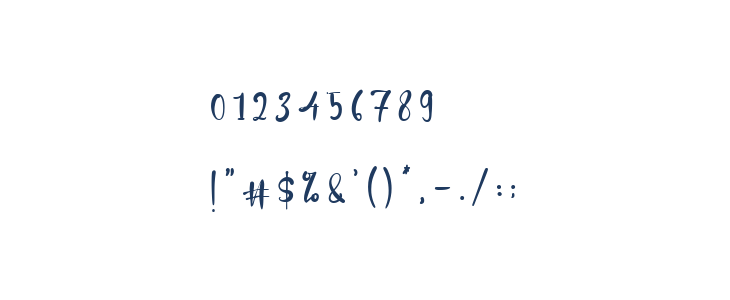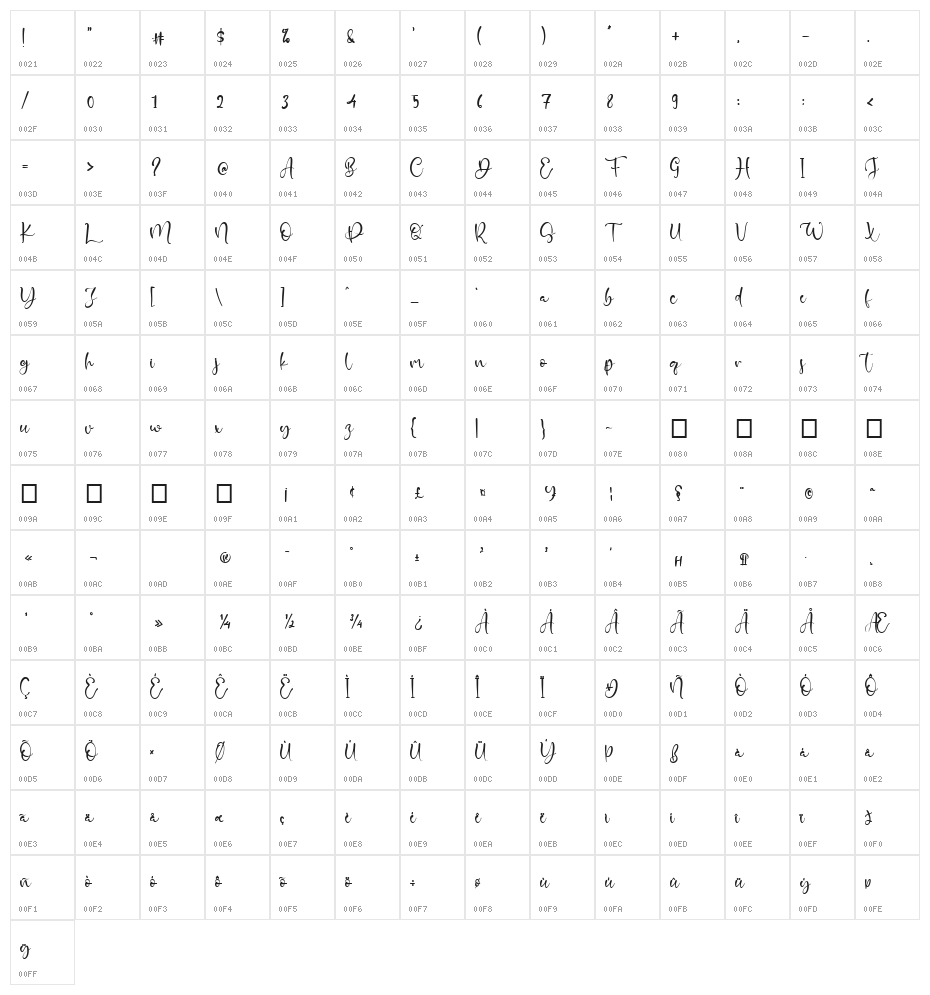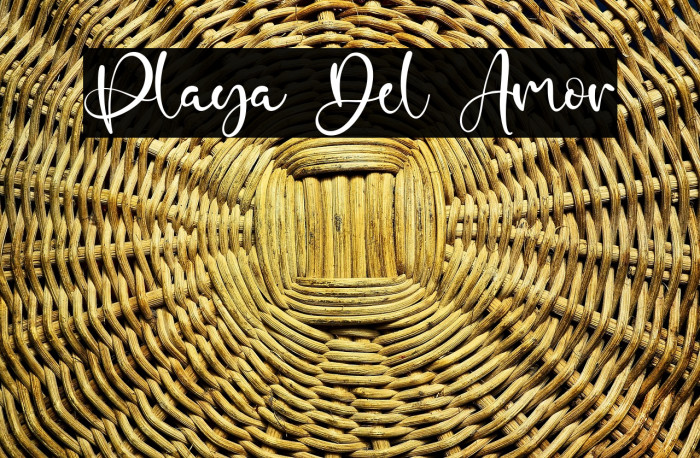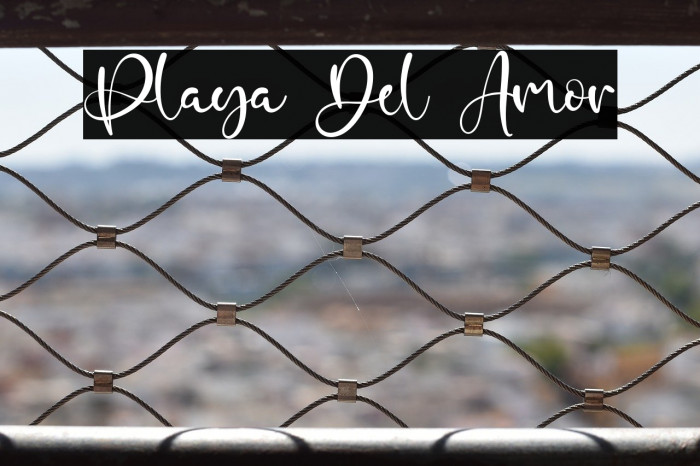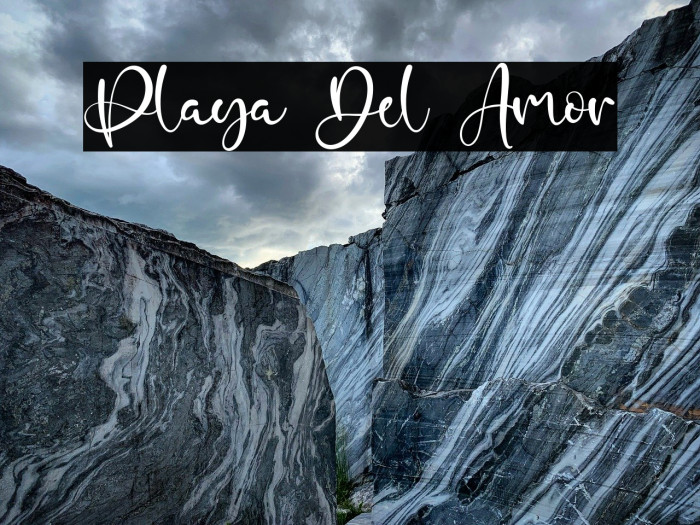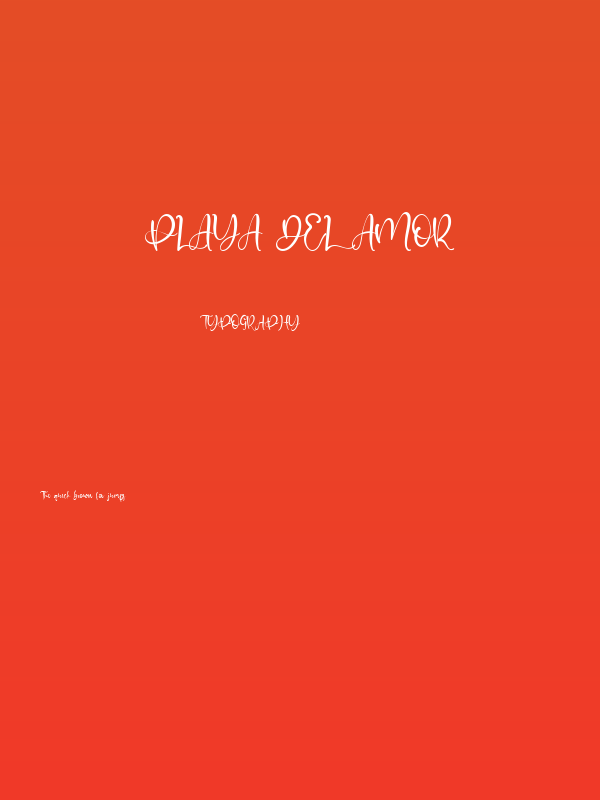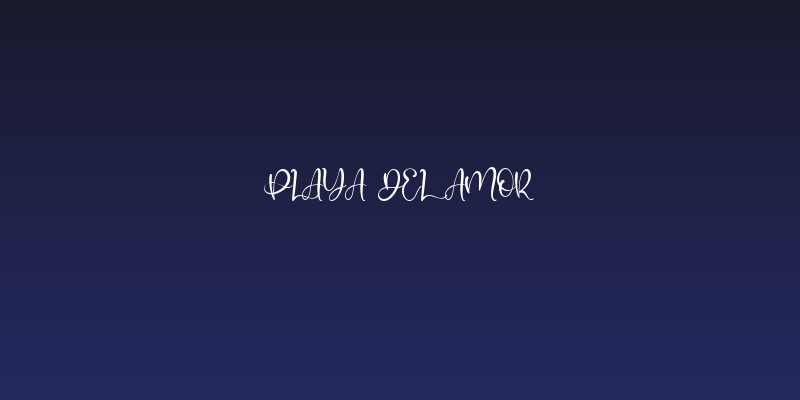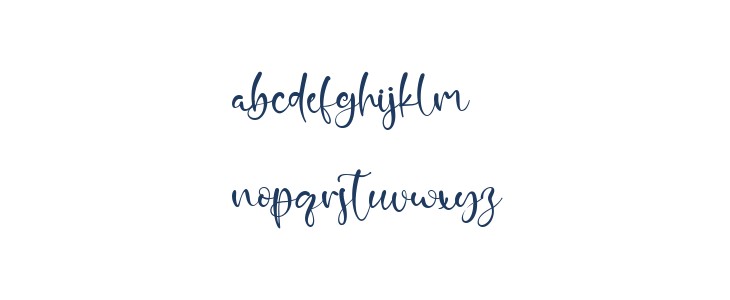
Playa Del Amor Font
Playa Del Amor Description
This font exudes a playful and romantic charm, characterized by its flowing, cursive script style. The letters are elegantly connected, with each character featuring graceful loops and swirls that add a sense of movement and fluidity. The uppercase letters are bold and expressive, while the lowercase letters maintain a consistent rhythm and balance. The numbers and special characters are designed to complement the overall aesthetic, making this font versatile for various creative applications. Its handwritten appearance gives it a personal touch, ideal for projects that require a warm and inviting feel.